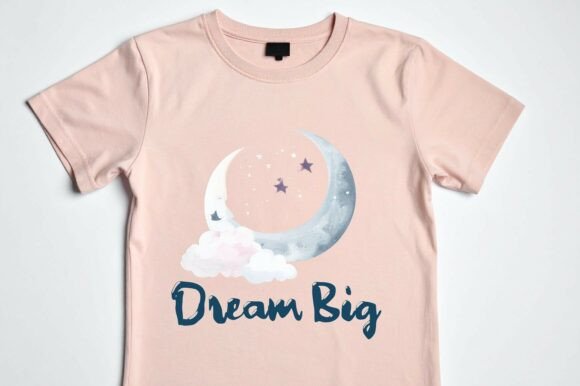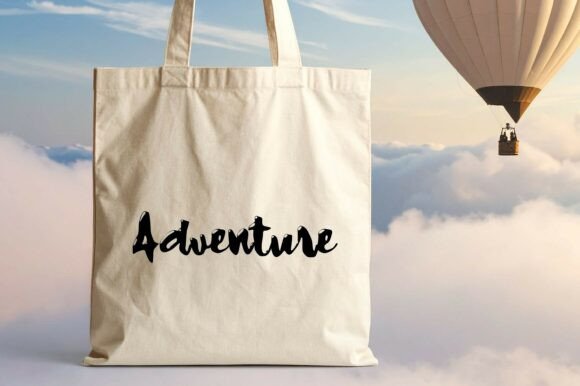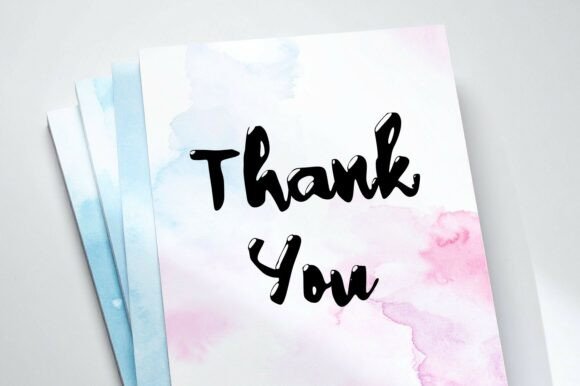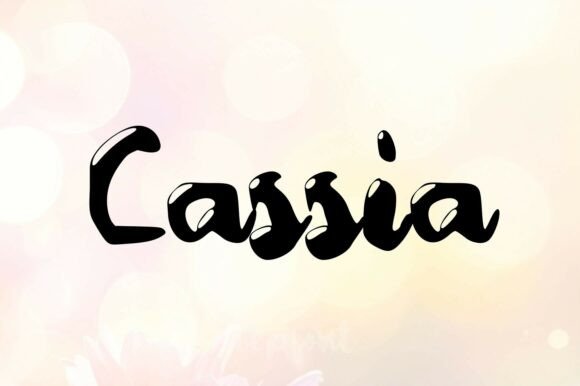
Discover the Elegance of Cassia Font: Elevate Your Designs with Sophistication
Welcome to the enchanting world of Cassia, a beautifully sculpted script font that embodies contemporary grandeur and captivating allure. With its inherent touch of class, Cassia is the perfect choice for designers and crafters seeking to add a dash of sophistication to their visual narratives.
The Art of Authentic Craftsmanship
Cassia’s eloquent sweeps and nimble transitions between letters convey a profound sense of authentic craftsmanship. Each usage emanates warmth and passion that feels bespoke, original, and authentic. The font’s meticulous handcrafted design, executed with keen precision, offers characters that are not only articulate and clearly legible but also possess a unique artistic flair.
Enhancing Your Visual Narrative
The Cassia font collection is designed to effortlessly augment the aesthetic appeal of any design. Its beauty rests on its inherent power to transform your visual narrative, making it perfect for a broad spectrum of applications. From logos to branding, opulent invitations, poignant greeting cards, uplifting quotes, to product packaging, Cassia endows a personal and premium touch.
Unleash Your Creativity with Cassia
Designs graced with Cassia exude a transformative professional charm while echoing the very essence of you. The font’s versatility allows you to experiment with various design elements, making it an ideal choice for:
- Logos and Branding: Create a lasting impression with Cassia’s elegant and sophisticated lettering.
- Invitations and Greeting Cards: Add a touch of luxury and refinement to your invitations and greeting cards.
- Quotes and Typography: Make your quotes and typography stand out with Cassia’s unique artistic flair.
- Product Packaging: Elevate your product packaging with Cassia’s premium and sophisticated design.
Why Choose Cassia Font?
Cassia font is the perfect choice for designers and crafters seeking a high-quality, elegant, and sophisticated script font. Here are some reasons why:
- Unique Artistic Flair: Cassia’s handcrafted design offers a unique artistic flair that sets it apart from other fonts.
- Legibility: The font’s characters are articulate and clearly legible, making it perfect for a wide range of applications.
- Versatility: Cassia’s versatility allows you to experiment with various design elements, making it an ideal choice for different design projects.
- Premium Touch: Cassia endows a personal and premium touch to your designs, making them stand out from the crowd.
In conclusion, Cassia font is a beautifully sculpted script font that embodies contemporary grandeur and captivating allure. Its inherent touch of class, authentic craftsmanship, and unique artistic flair make it the perfect choice for designers and crafters seeking to add a dash of sophistication to their visual narratives. With its versatility, legibility, and premium touch, Cassia is an ideal choice for a wide range of applications. So, why wait? Discover the elegance of Cassia font and elevate your designs with sophistication.